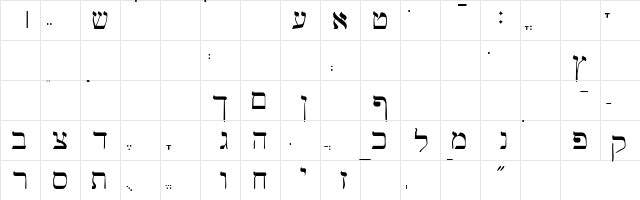
SPEzra Regular
Design Context for SPEzra Typeface
SPEzra offers clean, dependable letterforms without strong stylistic allegiance, making it a practical choice for designers who need flexibility.